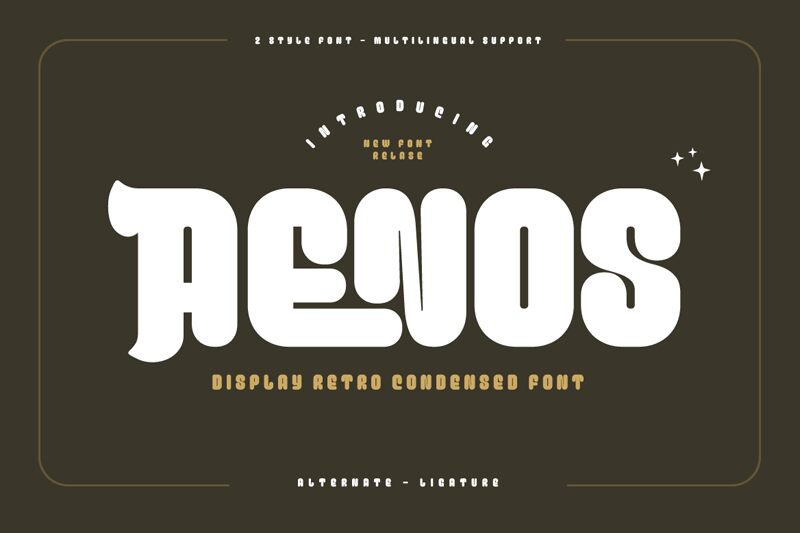
AENOS Regular
Aenos font is a bold condensed groovy display font designed by productype.com. Its rounded geometric forms and modern minimalist style give it a strong presence that’s unfailingly authoritative and energetic. Packaged in uniquely shaped playful wordmarks, every word you’ll create turns into quick logo whether you actually need one or not.